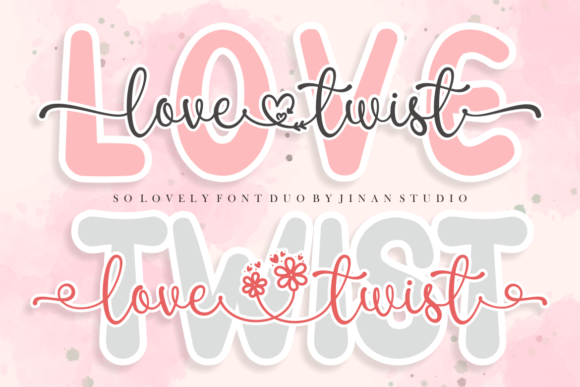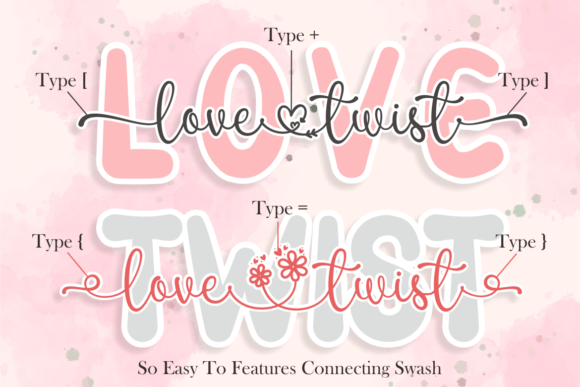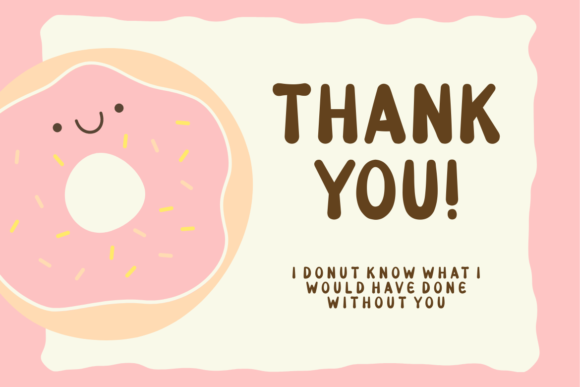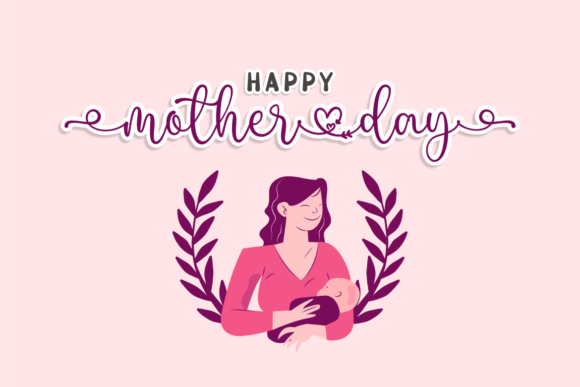
Love Twist Duo Font
About the Love Twist Duo Font
Get ready to be inspired by Love Twist Duo Font, a fresh and dynamic typeface for modern creators. Love Twist Duo is a stylish and delicate duo font (script and sans serif) suitable for a wide spectrum of applications. From greeting cards to headlines, this font will guarantee a romantic touch to each of your creations! Love Twist Duo is PUA encoded which means you can access all of the glyphs and swashes with ease.
Love Twist Duo’s script and sans-serif pairing works best in applications requiring a touch of romantic elegance, such as wedding invitations, branding for beauty or fashion companies, and short-form editorial design like magazine headers. It excels in headlines, short quotes, and logos, but its delicate nature makes it less suitable for large blocks of body text or user interfaces where readability is paramount.
The script’s swashes add a playful yet sophisticated touch, while the sans-serif provides a clean counterpoint. To enhance this balance, consider pairing it with a classic serif like Garamond for a timeless feel, or a geometric sans-serif such as Futura for a more modern aesthetic. A simple, neutral sans-serif like Lato could also work well to provide contrast and ensure readability if used alongside the script.
The overall personality of Love Twist Duo is romantic and subtly playful, making it ideal for brands that wish to project a feminine, sophisticated, and approachable image. Avoid using it in contexts requiring a strong, bold, or highly technical feel.
Love Twist Duo Font Usage Examples
Love Twist Duo Font Example